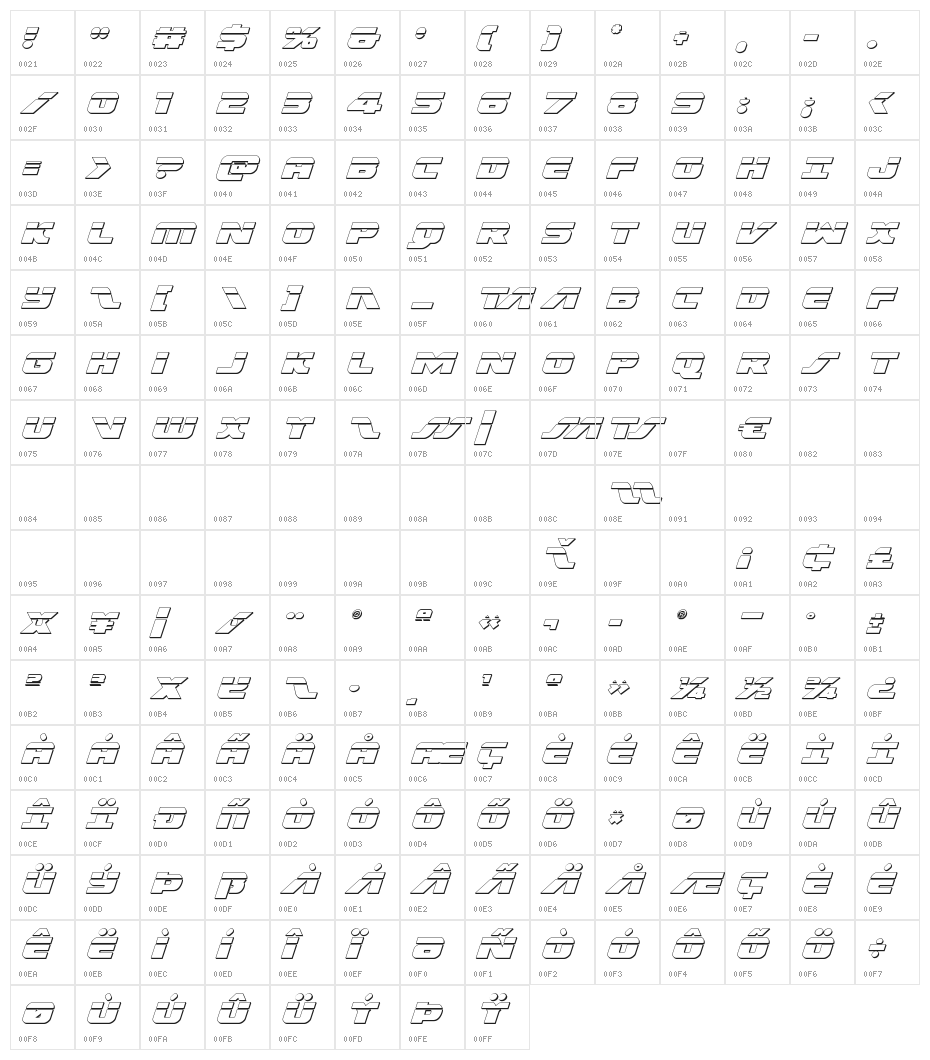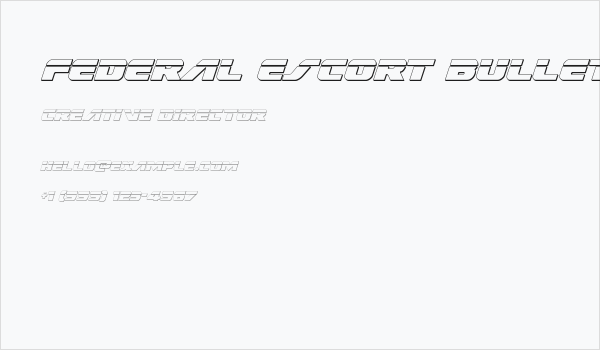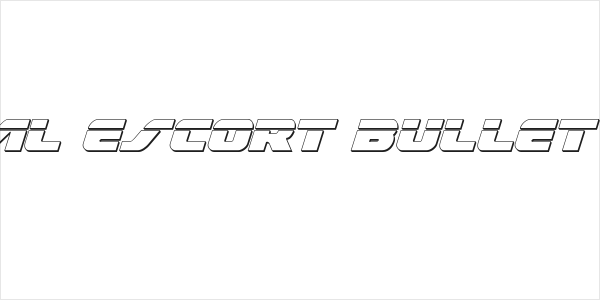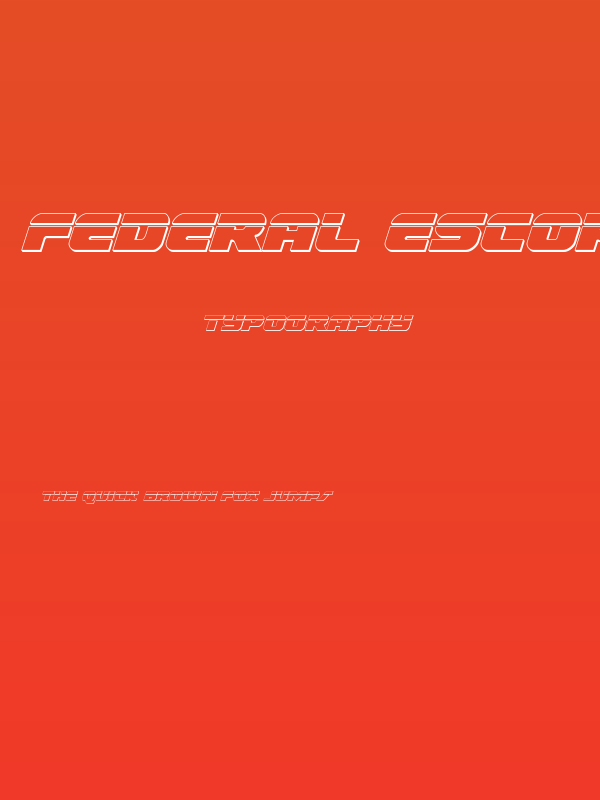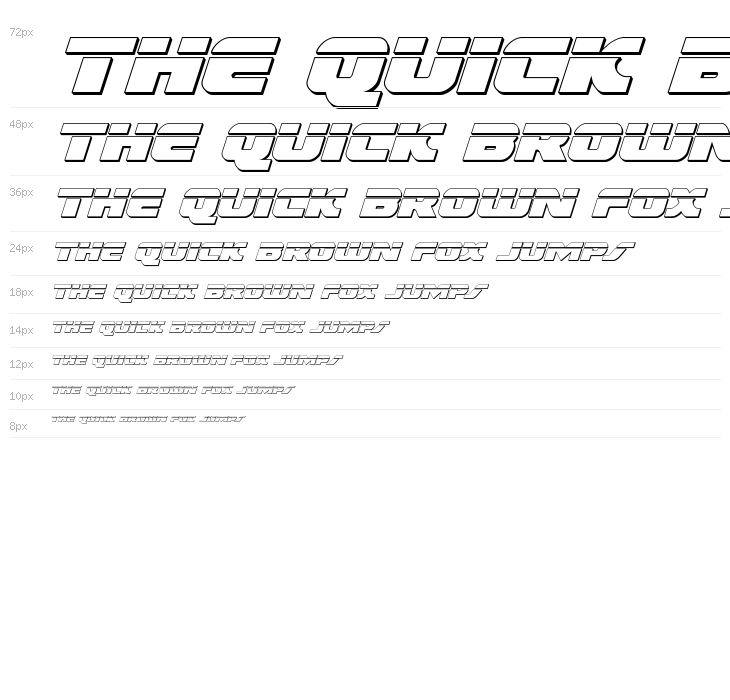
Federal Escort Bullet Italic Font
Federal Escort Bullet Italic Description
This font features a bold, italicized style with a futuristic and dynamic appearance. The characters are outlined, giving them a hollow, three-dimensional look. The design incorporates sharp angles and geometric shapes, creating a sense of movement and speed. The uppercase and lowercase letters maintain a consistent style, with the lowercase letters slightly smaller but equally bold. Numbers and special characters follow the same design principles, ensuring uniformity across all elements. The font's unique style makes it stand out, ideal for projects that require a modern and edgy aesthetic.
| Proposed Projects | Ideal for sci-fi themed designs, video game titles, tech branding, and futuristic posters. |